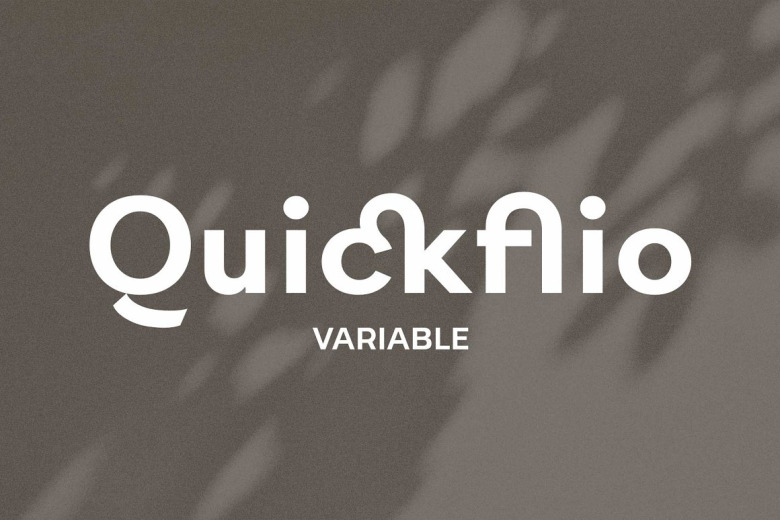
Quickflio Font
Quickflio Font Family with Variable Suitable for any design. This fabulous font family was created after years of checking visibility and artistic merit. Most designers prefer this font. It supplies a variable font with two axes. In addition, you may use Quickflio with a range of letters, contours, and sentences to try various stem widths from 10pt to 220pt. As a designer, you have many choices to make.
Finally, 44 appearance and wonderful ligature allow you to think and consider more deeply. At the same time, all the ligature in these ways is Standard Ligatures. It’s easy for you to pick your best choice.’ Obviously, this design is Quickflio with 764 glyph per each style.
Quickflio Sans Serif Font Family